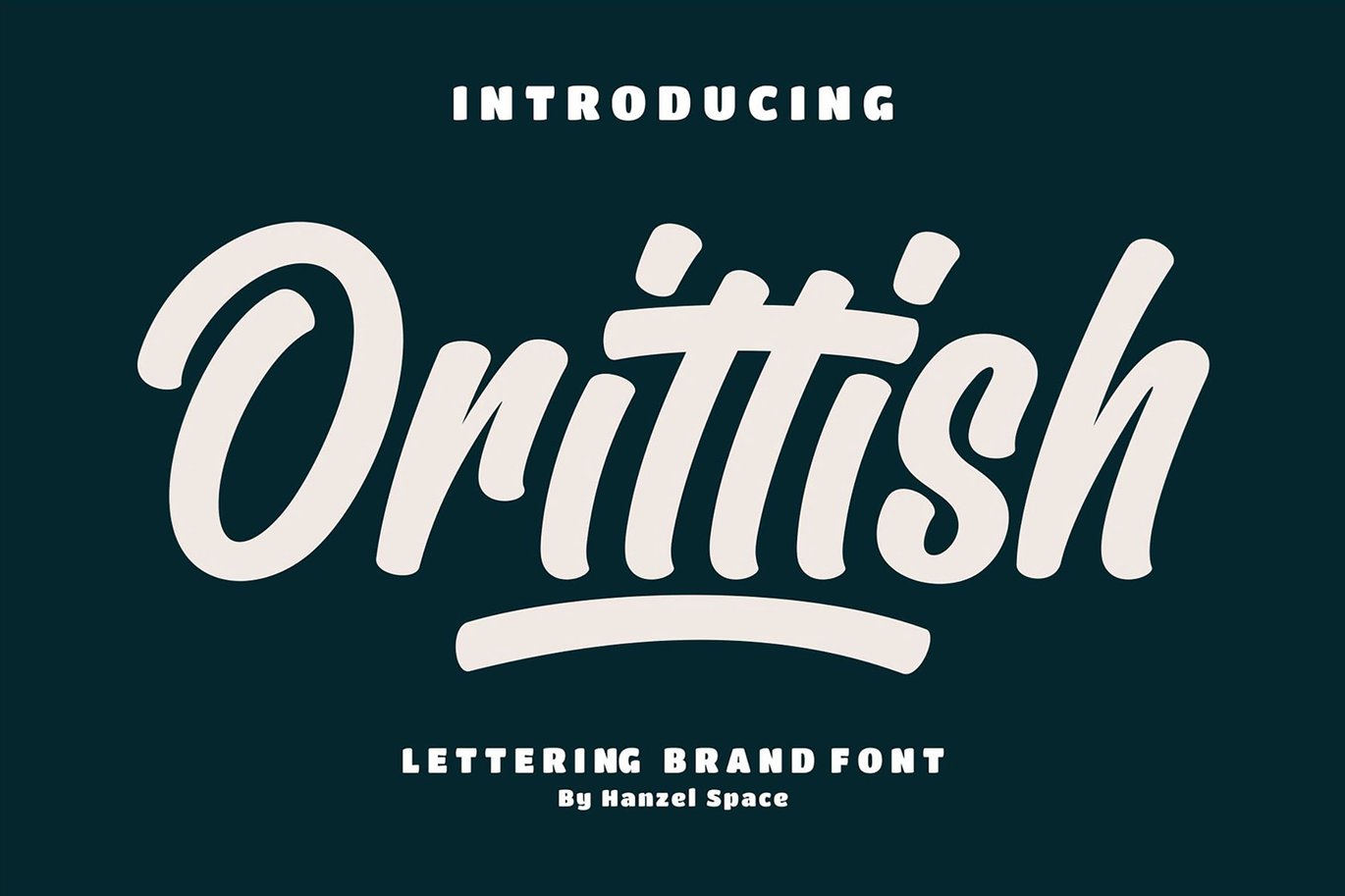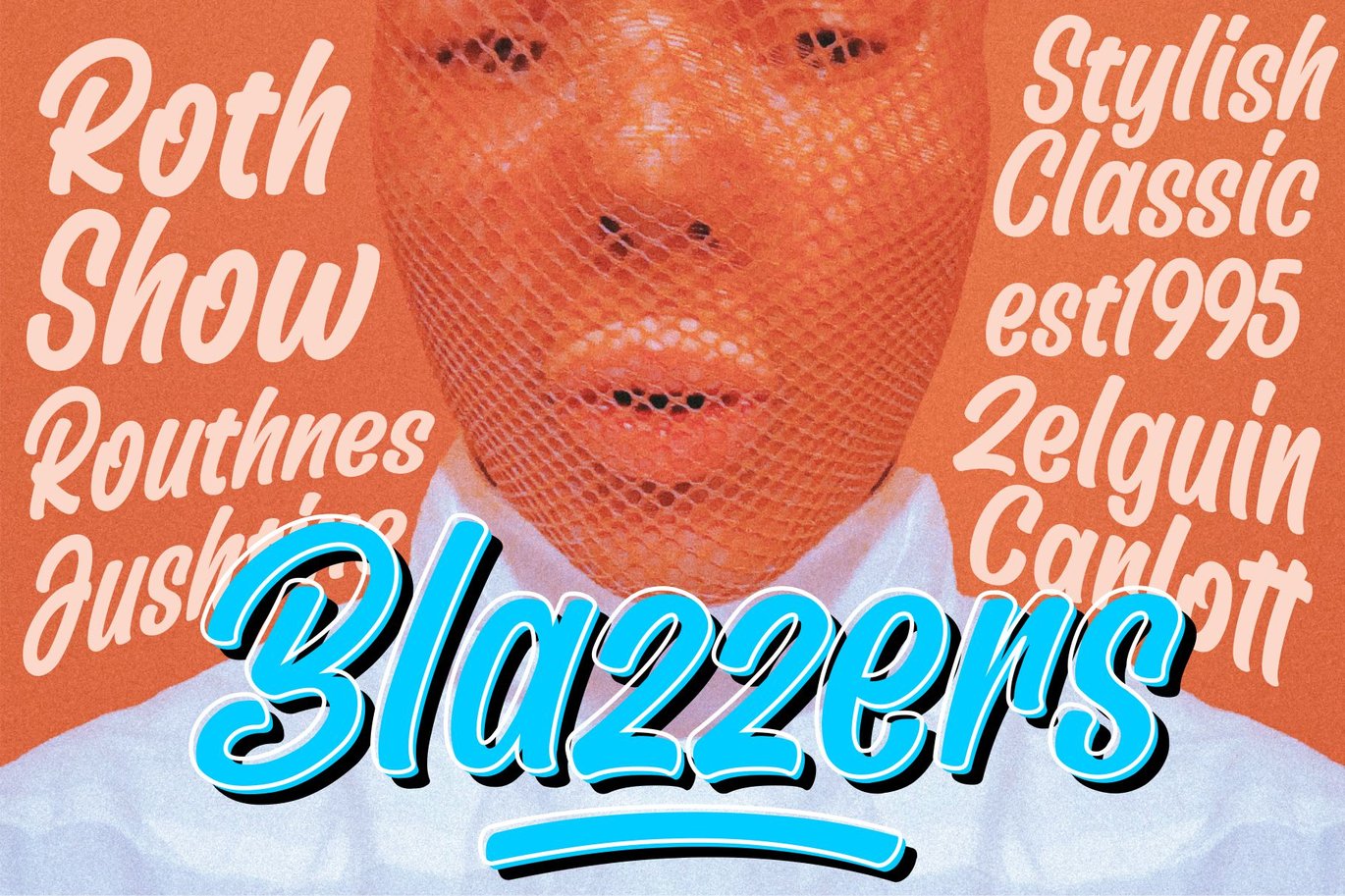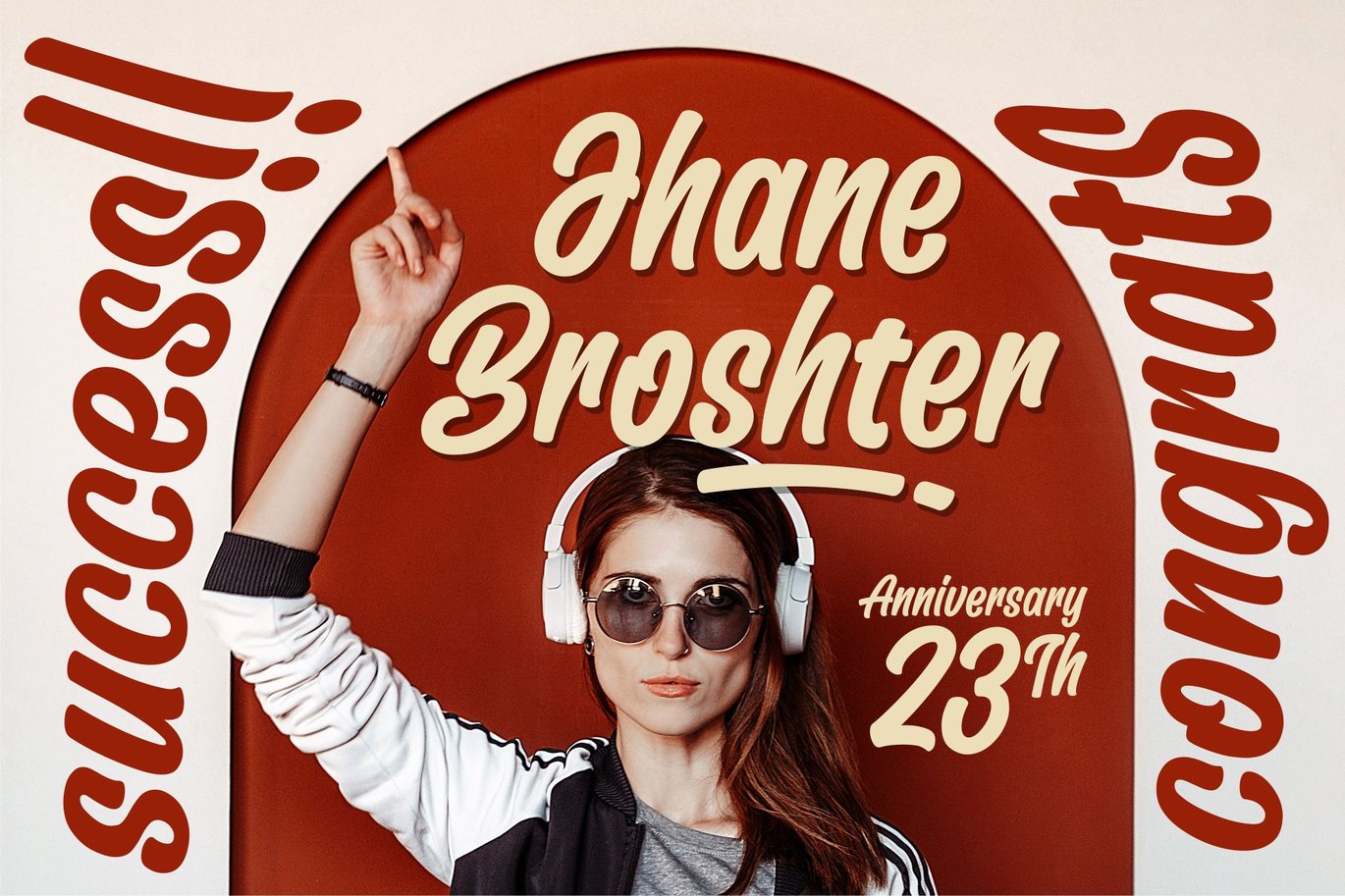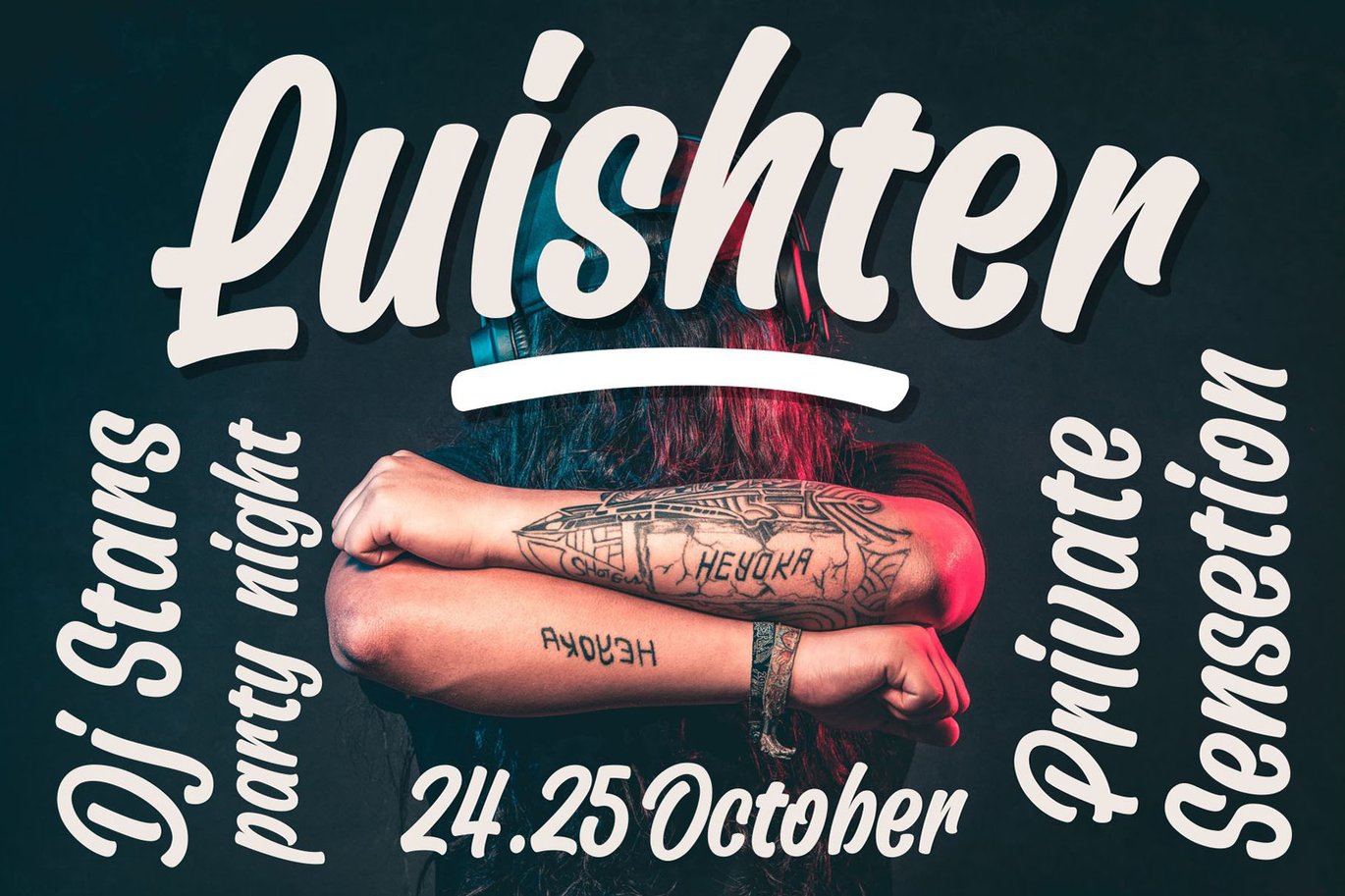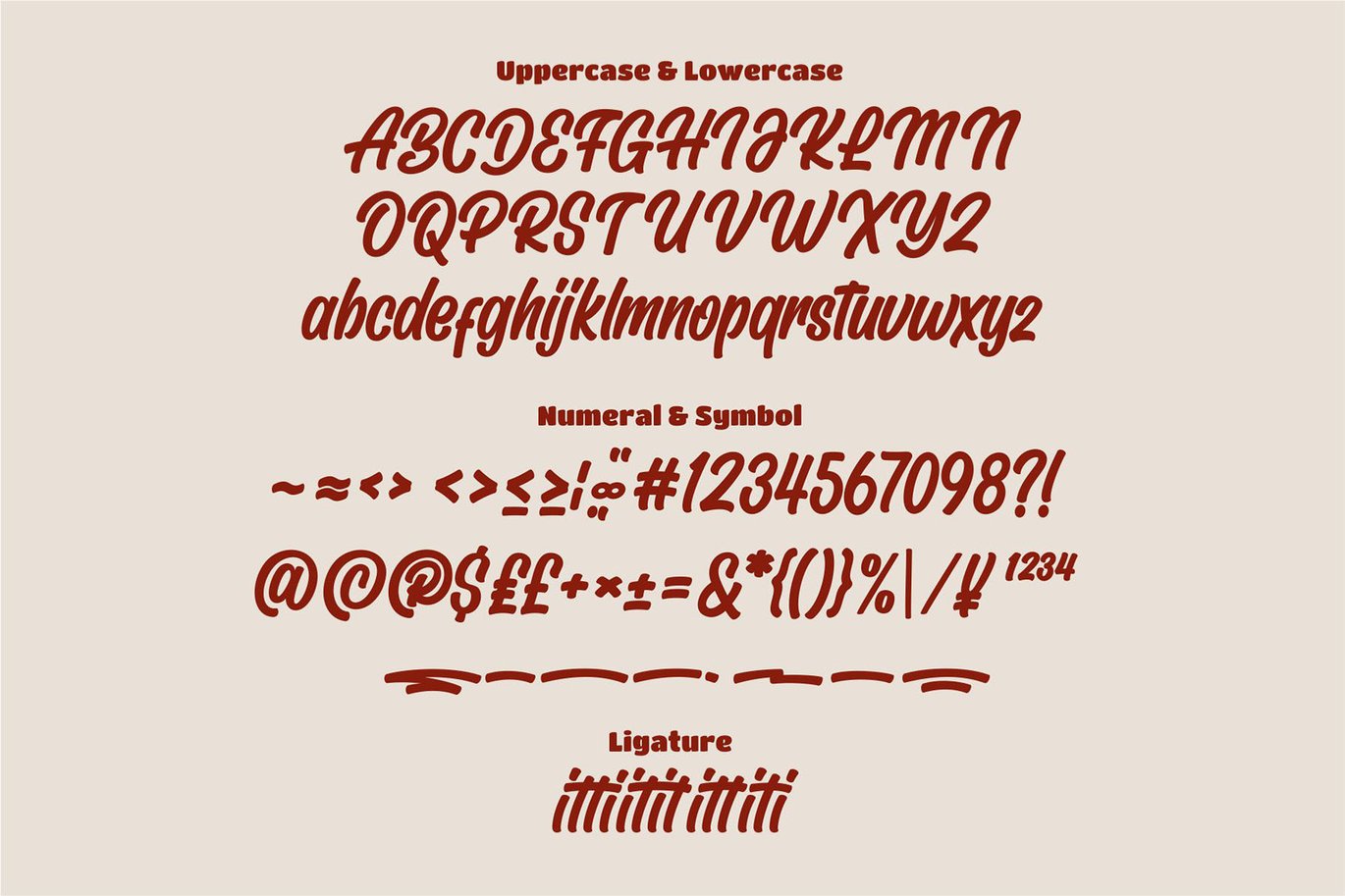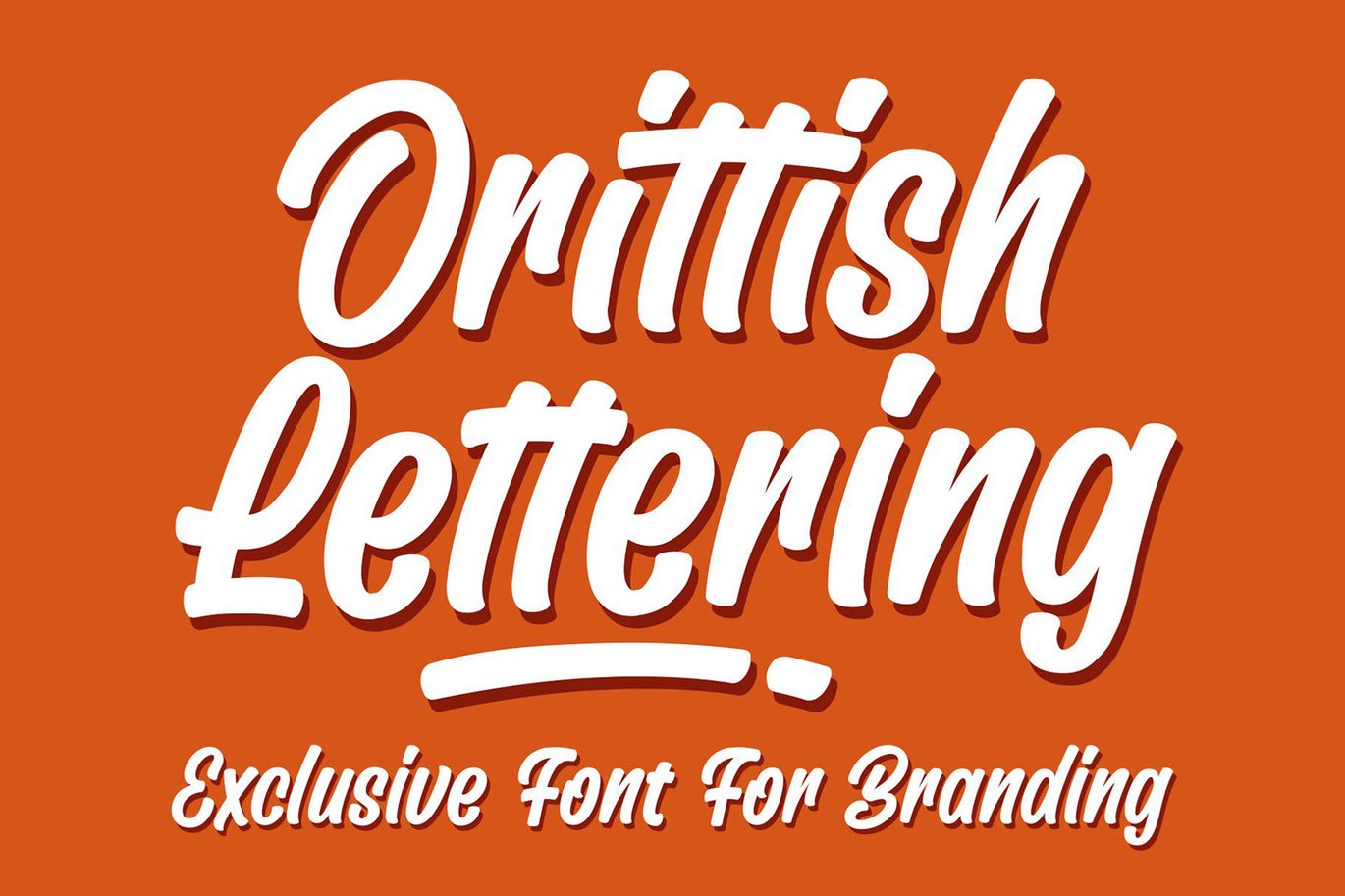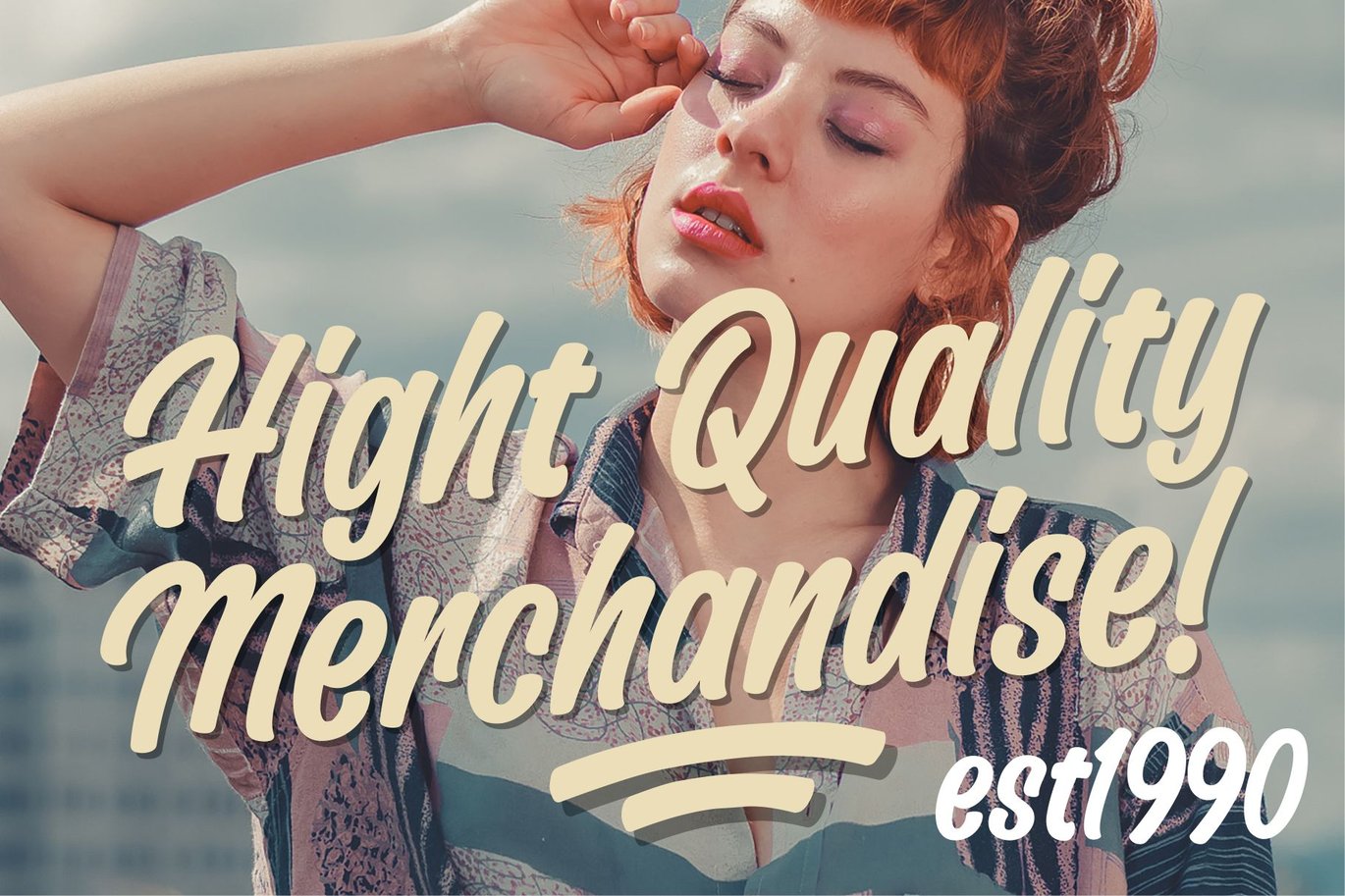
Orittish | Lettering Brand Font
Orittish – Lettering Brand Font
Introducing our font Orittish, we have finished the font project we made for your company’s branding needs. The character of this font is that it has characters that are not connected to each other, we deliberately made it that way so that it is more flexible when it will be paired in a product branding for your business.
Orittish comes with upper and lowercase characters, punctuation, numerals,supports international languages and OpenType features with Stylistic Alternates,watshot type is very best choice fonts for : ,quotes, Posters, Logos, Print Ads, Digital Ads, Promotion Product, video bumper, etc.